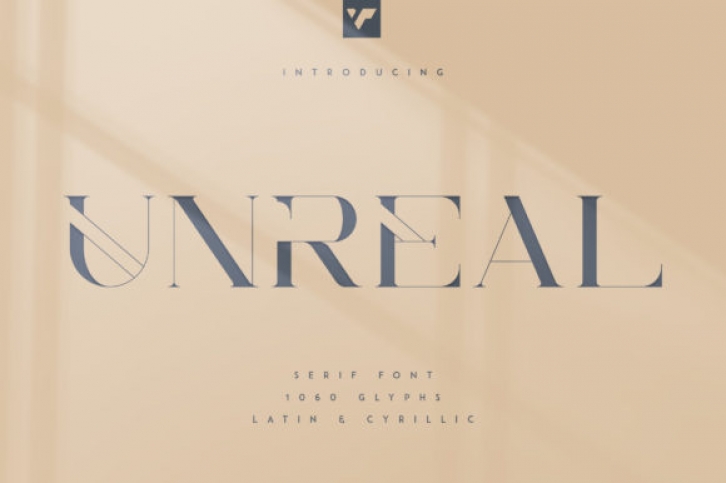
Unreal is a modern Serif font with elegant lines and delicate swashes. This font is PUA encoded which means you can access the available glyphs and swashes with ease! Unreal is perfect for branding projects, home-ware designs, product packaging, magazine headers – or simply as a stylish text overlay to any background image.